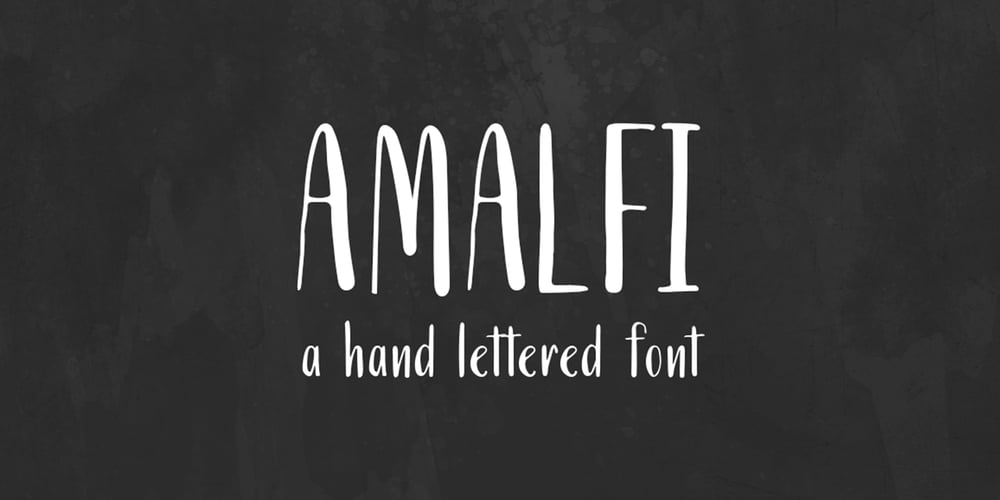
Amalfi Font Family was designed by Irina Vascovet and published by Irina Vascovet. Amalfi contains 1 styles and family package options. Amalfi a hand written pointed pen font that is filled with personality. The font comes with upper and lowercase characters in both Roman and Cyrillic, numbers, marks and punctuation.